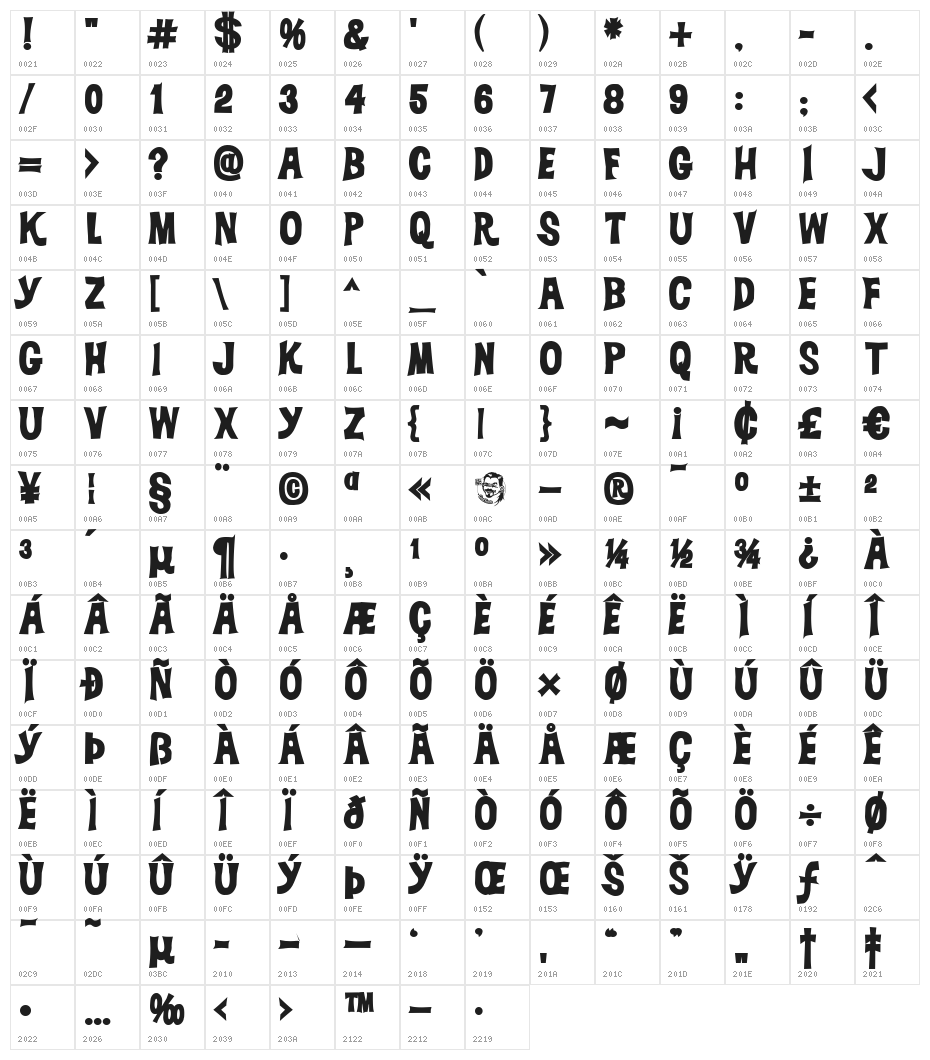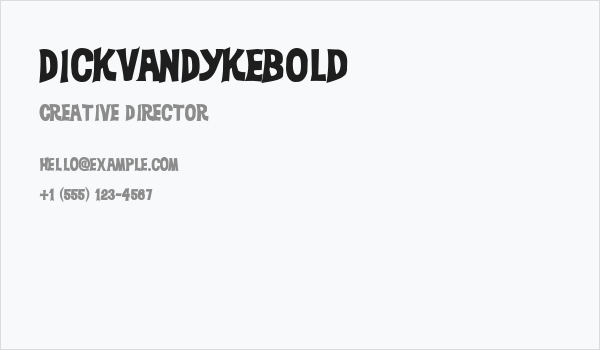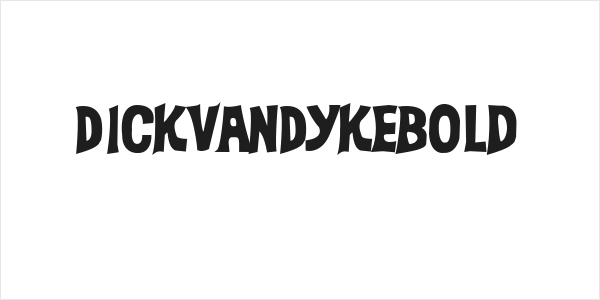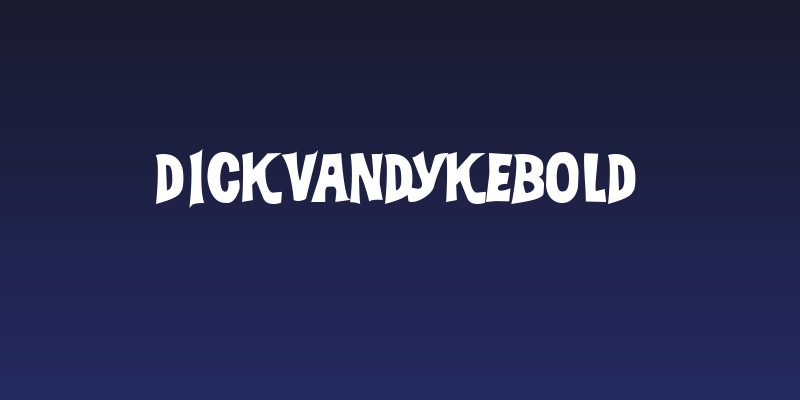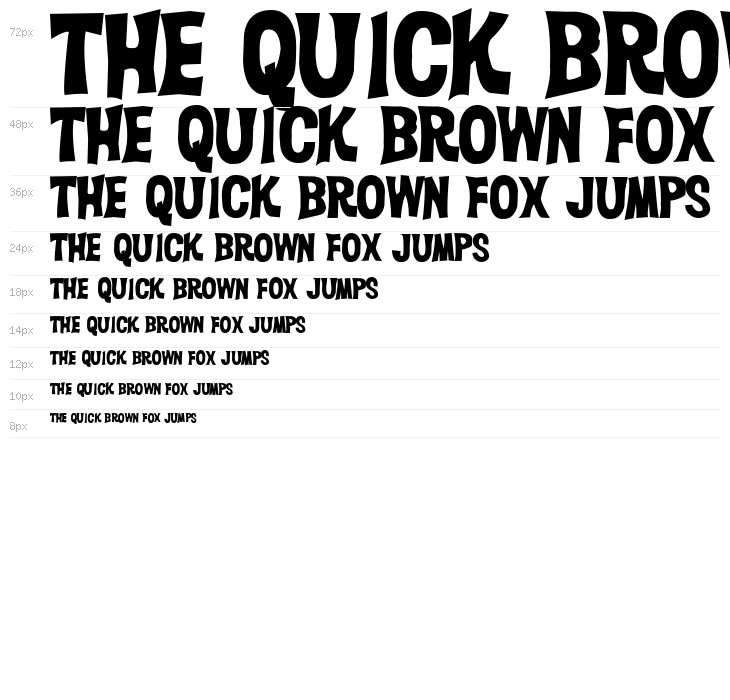
DickVanDykeBold Font
DickVanDykeBold Description
This font features a bold and playful design with exaggerated curves and a whimsical style. The characters are thick and robust, making them highly visible and attention-grabbing. The uppercase letters have a unique, slightly distorted appearance, adding to the font's quirky charm. The numbers and special characters maintain this playful aesthetic, ensuring consistency across all glyphs. The font's boldness and distinctive style make it ideal for projects that require a fun and lively touch.
| Proposed Projects | Ideal for children's book covers, playful branding, posters, and event invitations. |